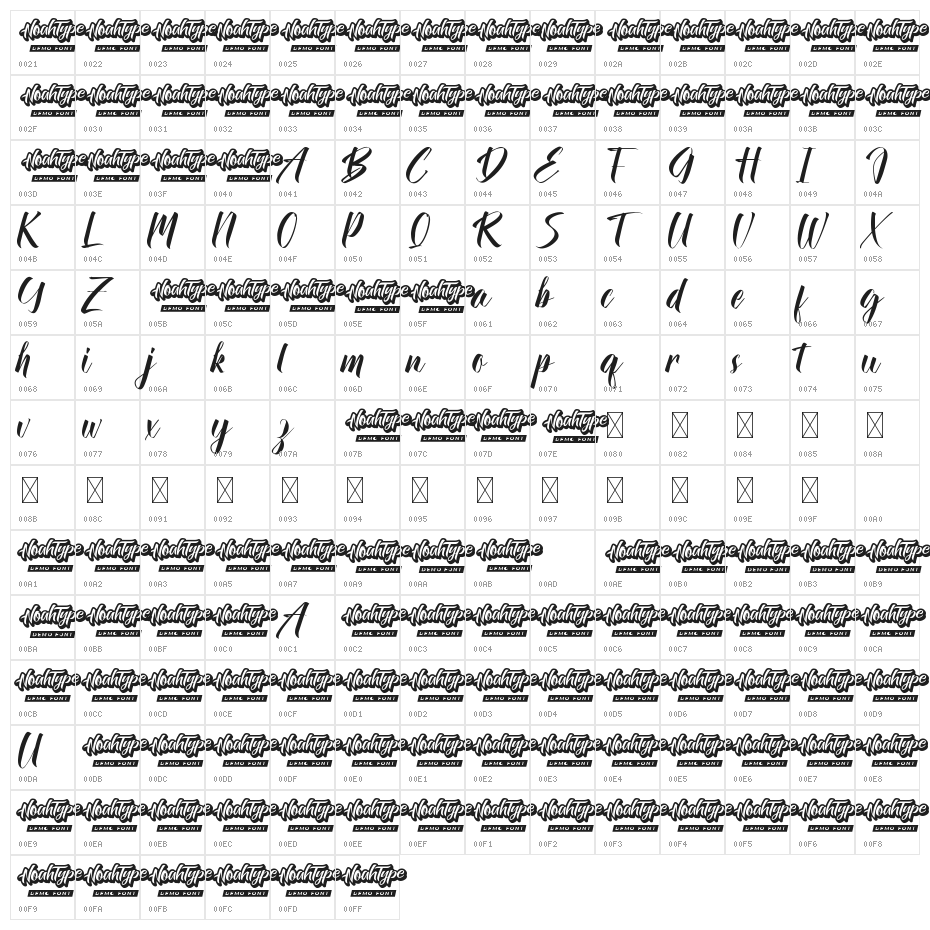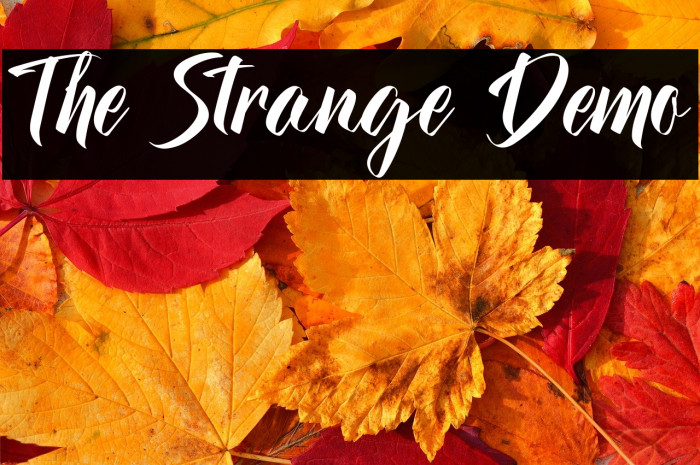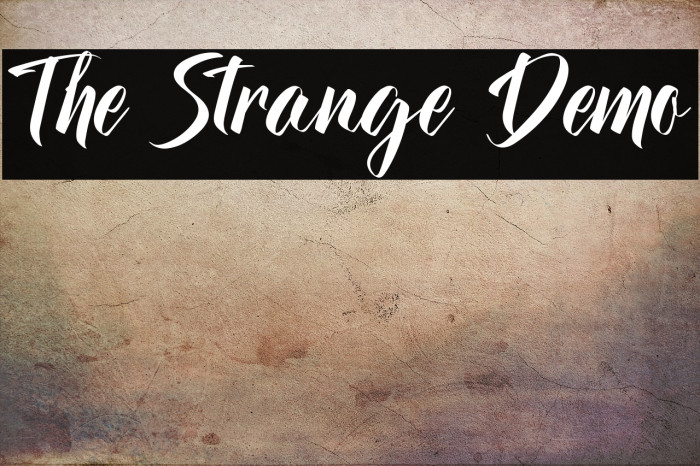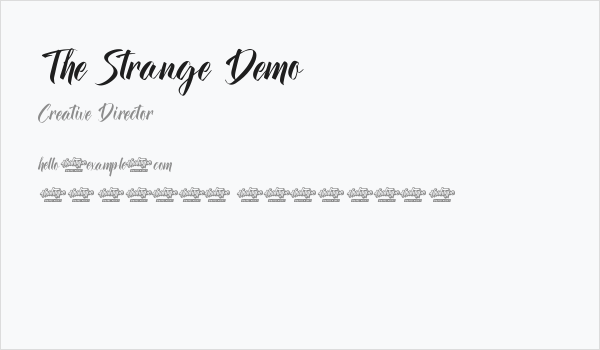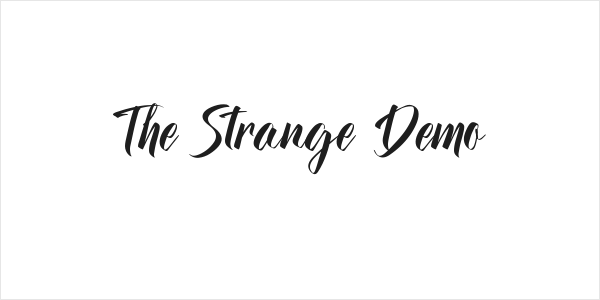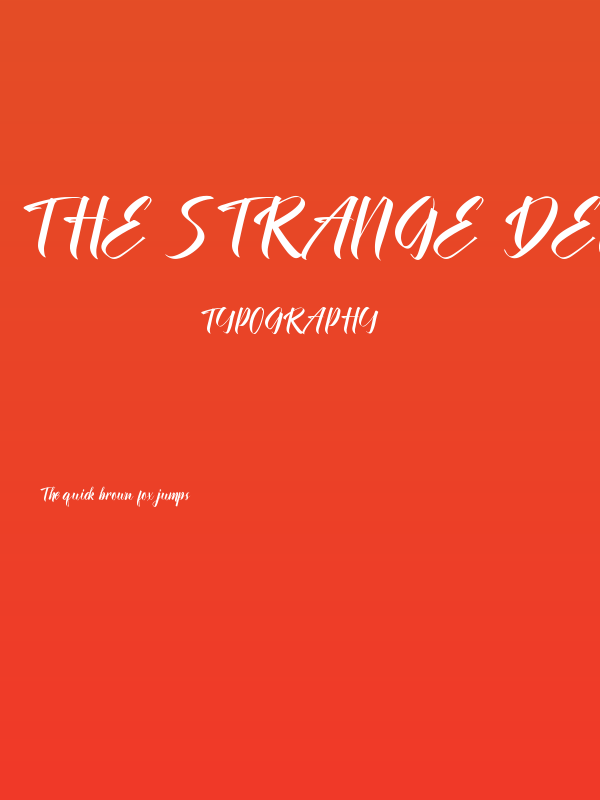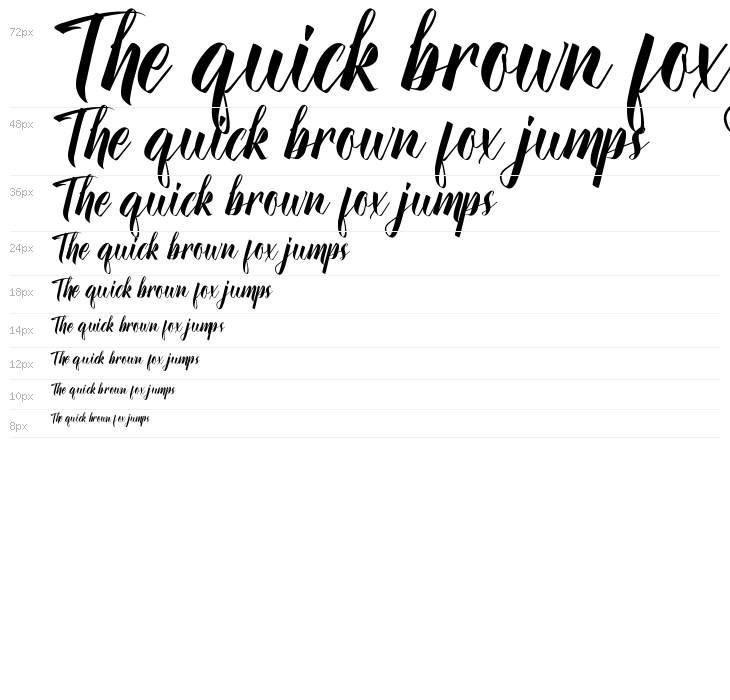
The Strange Demo Font
The Strange Demo Description
This font features a dynamic and flowing script style, characterized by its bold and expressive strokes. The letters are interconnected, creating a sense of movement and elegance. The uppercase letters are tall and slightly slanted, while the lowercase letters maintain a consistent flow with intricate loops and curves. The overall design is highly decorative, making it suitable for creative and artistic projects. The font's boldness and unique style make it stand out, adding a touch of sophistication and flair to any design.